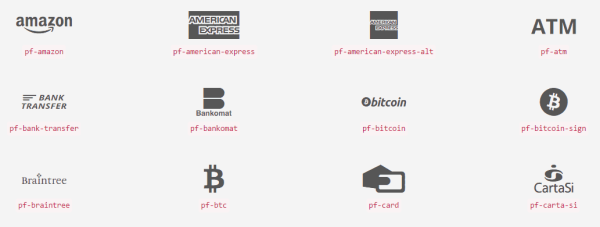
Free Payment font
Free payments font
Payment font is free, sleek SVG webfont containing 74 icons of payment methods and logos of all main payment operators. It is lightwight – use Payment font instead of images to reduce page size – and very easy to use. Payment font is opensaurce, free to use with no attribution required.